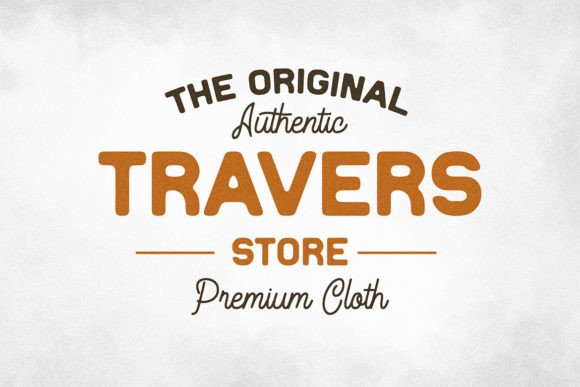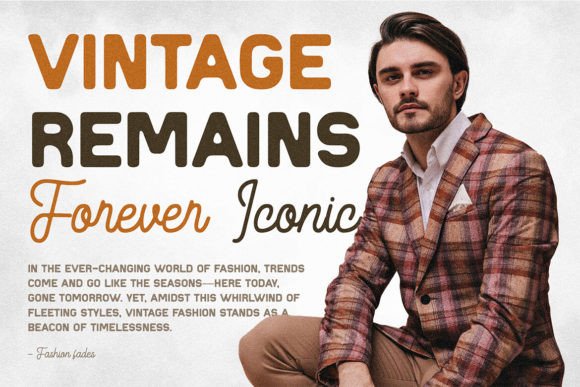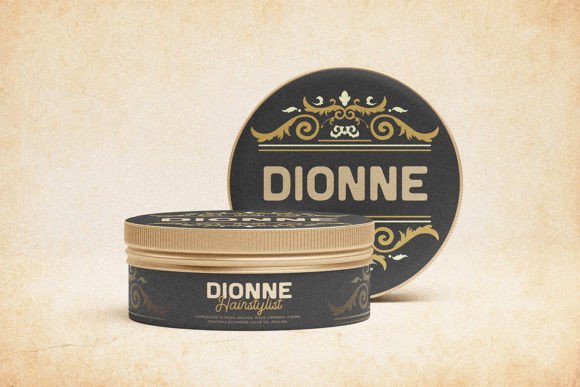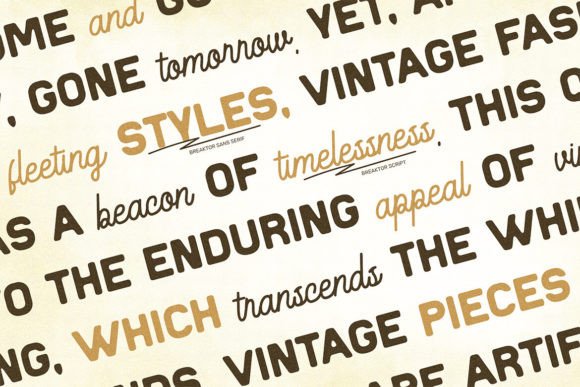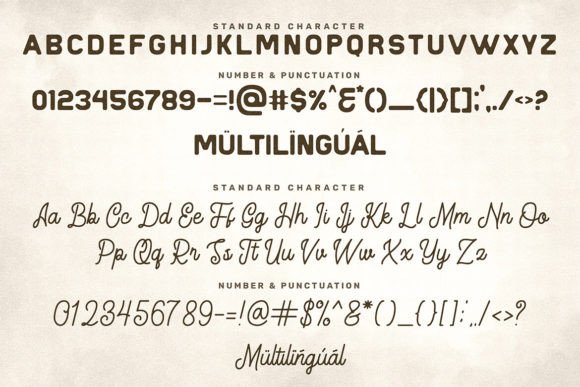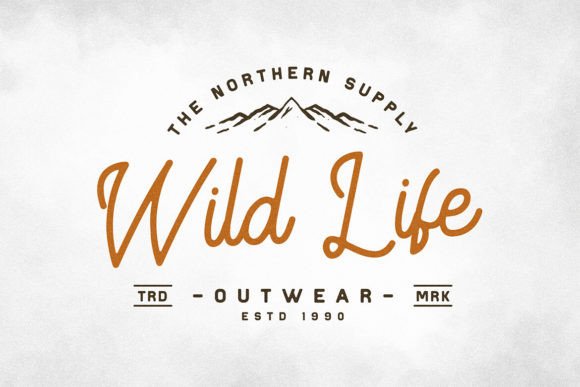
The Breaktor Font: A Vintage Duo for Creative Minds
I’ll never forget the time I was working on a logo design project for a client’s vintage-inspired boutique. I had a clear vision of the aesthetic I wanted to achieve, but I was struggling to find the perfect font to bring it all together. That’s when I stumbled upon the Breaktor Font, a versatile duo that has since become a staple in my design toolkit.
A Closer Look at Breaktor Font
The Breaktor Vintage Duo Font is a beautifully crafted collection of two complementary font styles: an elegant script monoline font and a bold sans serif font. This pairing offers a unique blend of vintage charm and modern sophistication, making it perfect for creating stunning designs for logos, posters, invitations, and more.
So, what do I love about the Breaktor Font? Here are a few highlights:
• ✨ Elegant script monoline font: The script font has a beautiful, handwritten look that’s perfect for adding a touch of vintage elegance to any design.
• ✅ Bold sans serif font: The sans serif font is modern, striking, and perfect for making a statement.
• 🌈 Versatile pairing: The two fonts work beautifully together, allowing you to create stunning contrast and visual interest in your designs.
• 🤔 Limited ligatures: While the font has some lovely ligatures, they’re not as extensive as some other fonts on the market.
• ⚠️ Occasional kerning issues: As with any font, you may encounter some kerning issues, particularly when using the script font with certain letter combinations.
The Designer Inspiration Behind Breaktor Font
The Breaktor Font was inspired by the classic typography of the early 20th century, with a modern twist. The designer, who wishes to remain anonymous, drew inspiration from vintage posters, advertisements, and signage to create a font that’s both nostalgic and fresh.
Is the Breaktor Font suitable for body text? While the Breaktor Font is beautiful for headings and titles, it’s not recommended for body text due to its elegant, script nature.